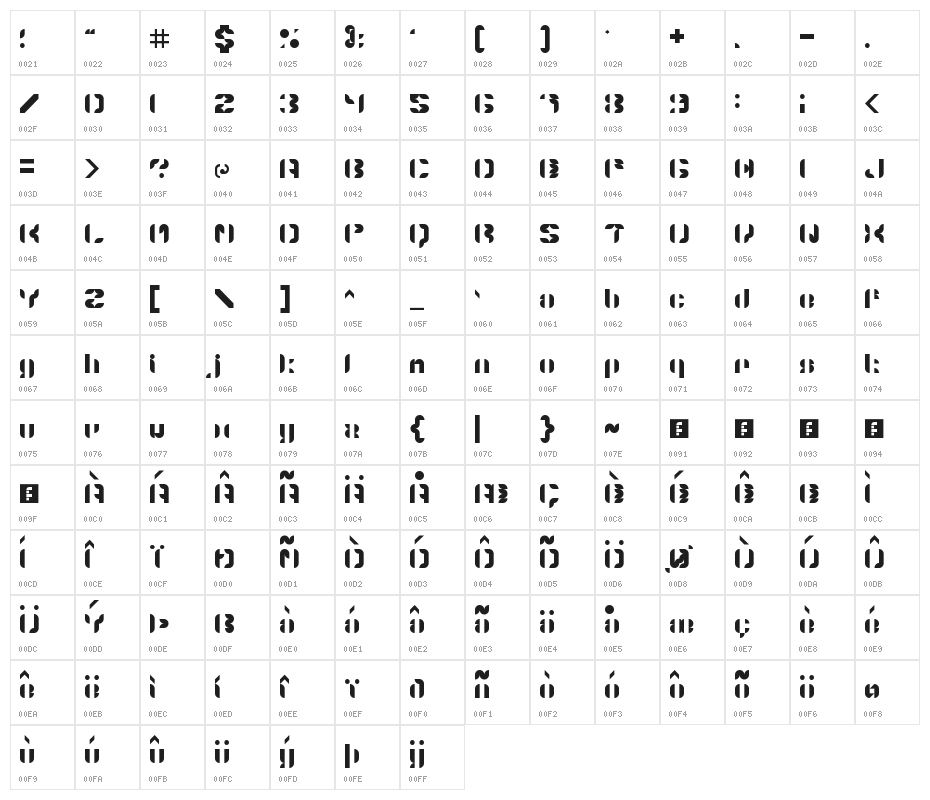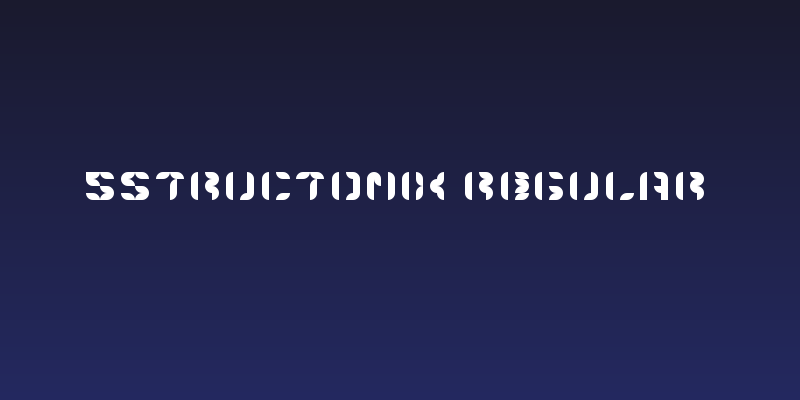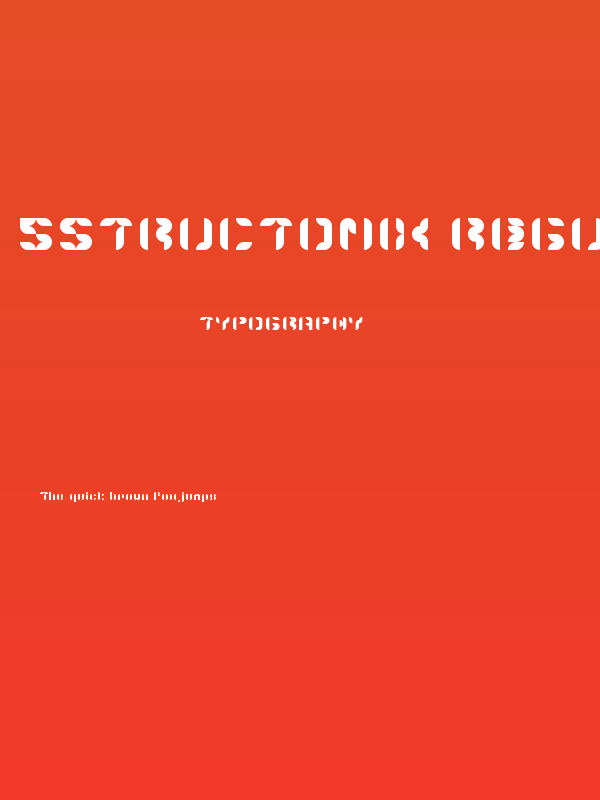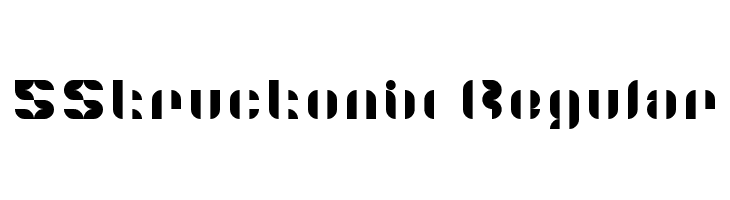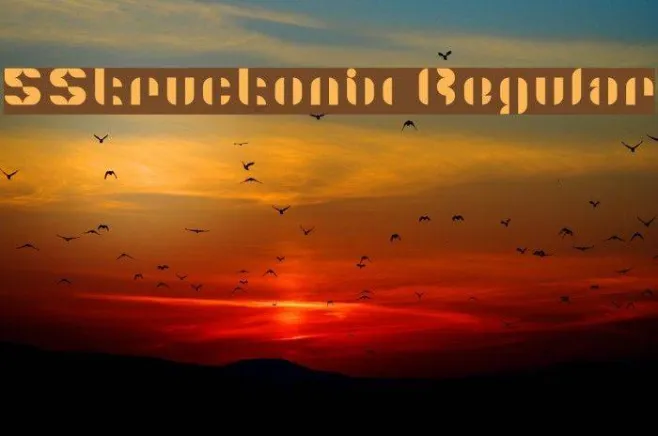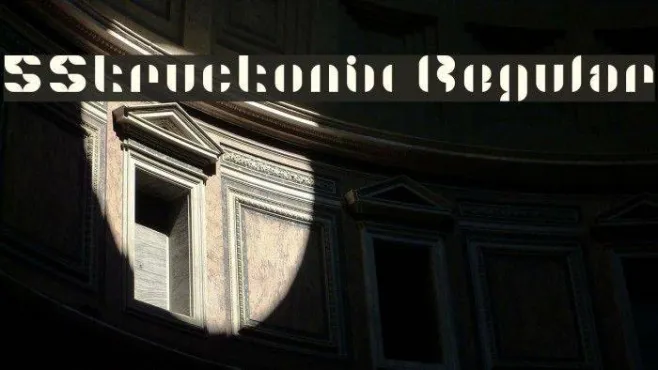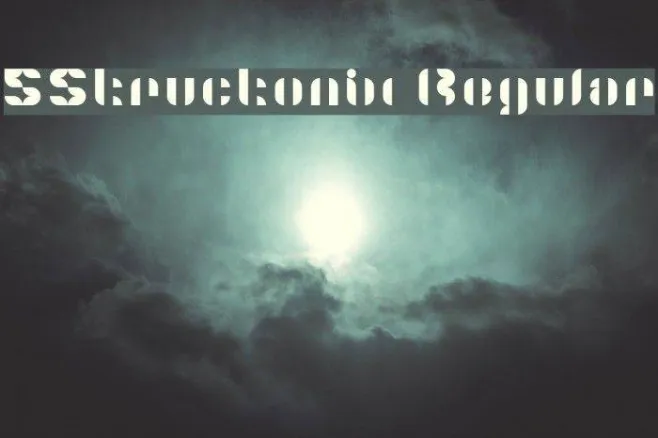
5Structonix Regular Font
5Structonix Regular Description
This font features a bold, geometric design with a stencil-like appearance. The characters are constructed with solid, blocky shapes that create a sense of strength and modernity. The use of negative space within each character adds an intriguing visual element, making it stand out in any design. The uppercase and lowercase letters maintain a consistent style, while the numbers and special characters complement the overall aesthetic. This font is ideal for projects that require a contemporary and industrial feel.
| Proposed Projects | Perfect for branding, posters, signage, and any project needing a strong, modern look. |